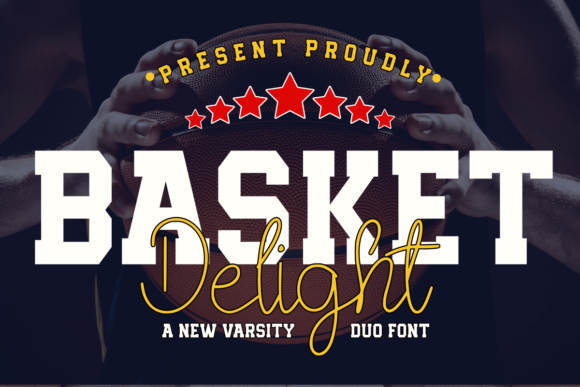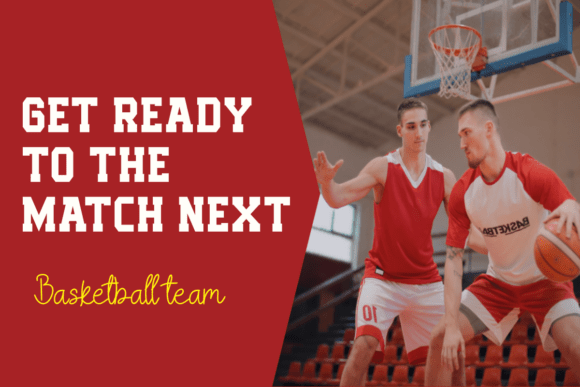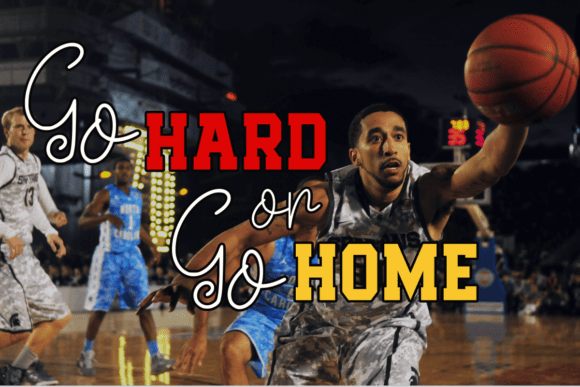
Basket Delight Font: A Sporty Varsity Font Pairing for Logo Design
About the Basket Delight Font
The wait is over! The incredible Basket Delight Font is now available for your design toolkit. The Basket Delight font combination is a sporty varsity and college style font, with a combination of handwritten monoline script, created to brand any professional project, such as a logo type, title, poster, brand, promotion, product packaging, etc.
Basket Delight Font Usage Examples
Basket Delight Font Example